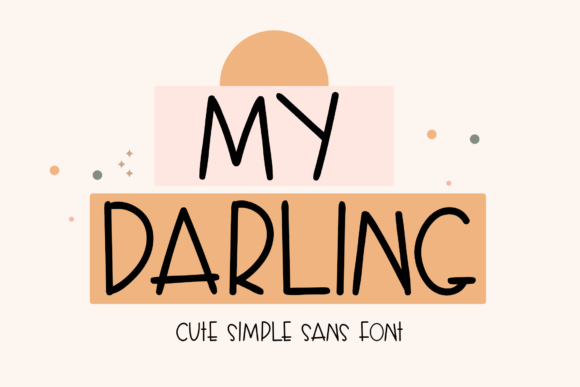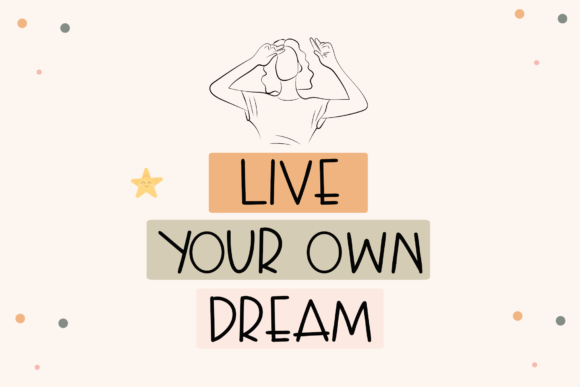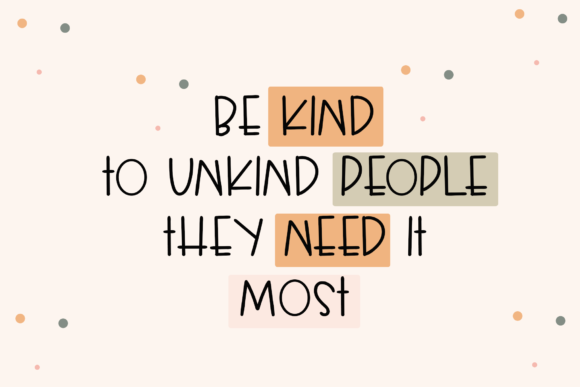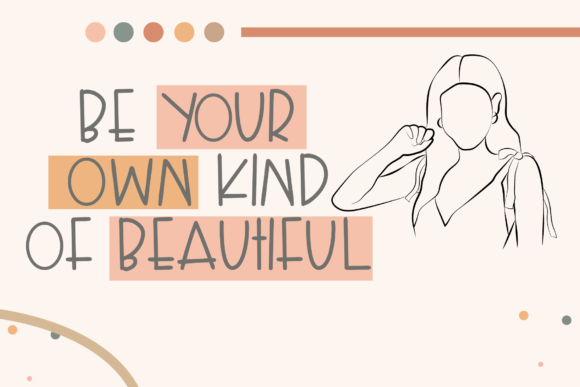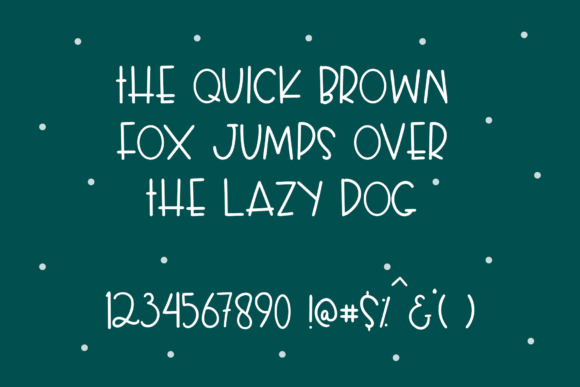
My Darling Font
About My Darling Font
My Darling is a cool and friendly handwritten font, perfect for children designs, chalkboard quotes, and teaching materials! Its authentic look will add a personal and realistic feel to your designs.